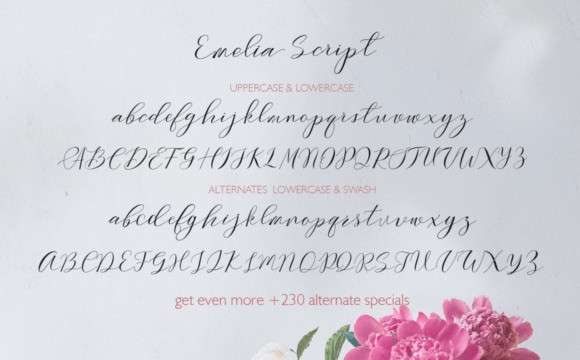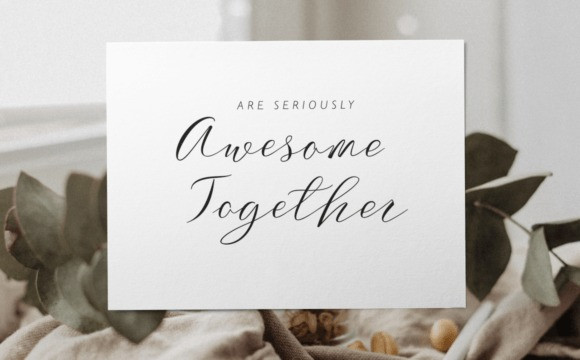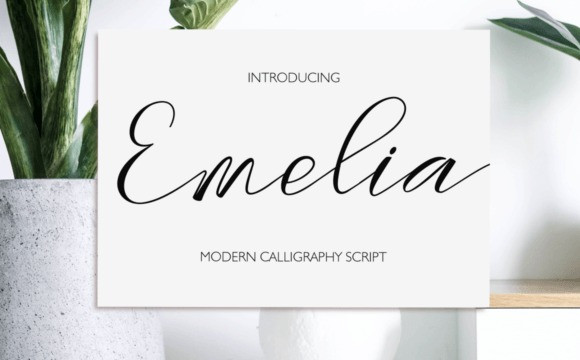
Emelia Script Font
Emelia Script Font is a modern calligraphy script font. Every single letter has been carefully crafted to make your text looks beautiful. With a modern script style, this font will be perfect for many different projects, for example, invitations, greeting cards, posters, name cards, quotes, blog headers, branding, logos, fashion, apparel, letter, stationery, and more!